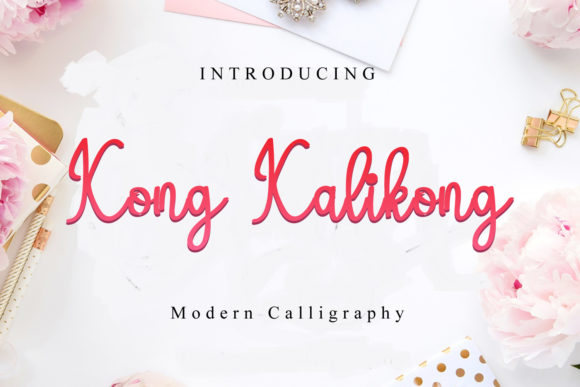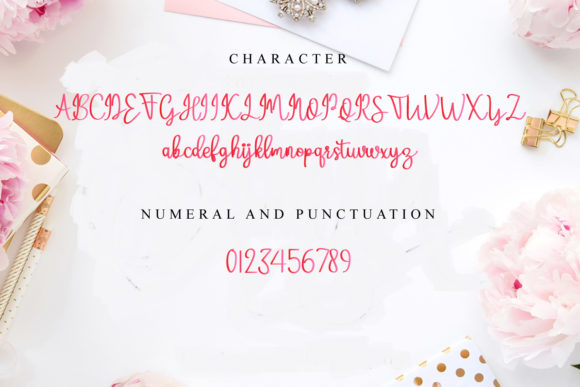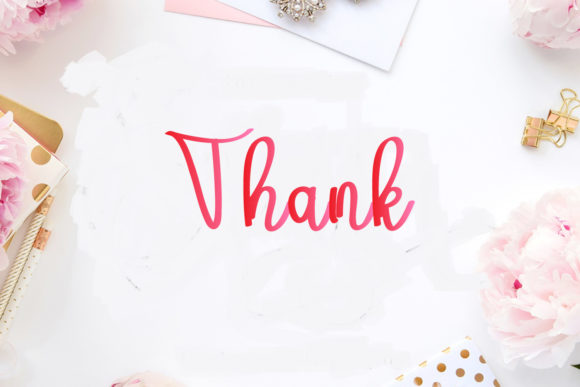
Kong Kalikong Font
Kong Kalikong is a cute and casual handwritten font with an incredibly friendly feel. It will look outstanding in any context, whether it’s being used on busy backgrounds or as a standalone headline!